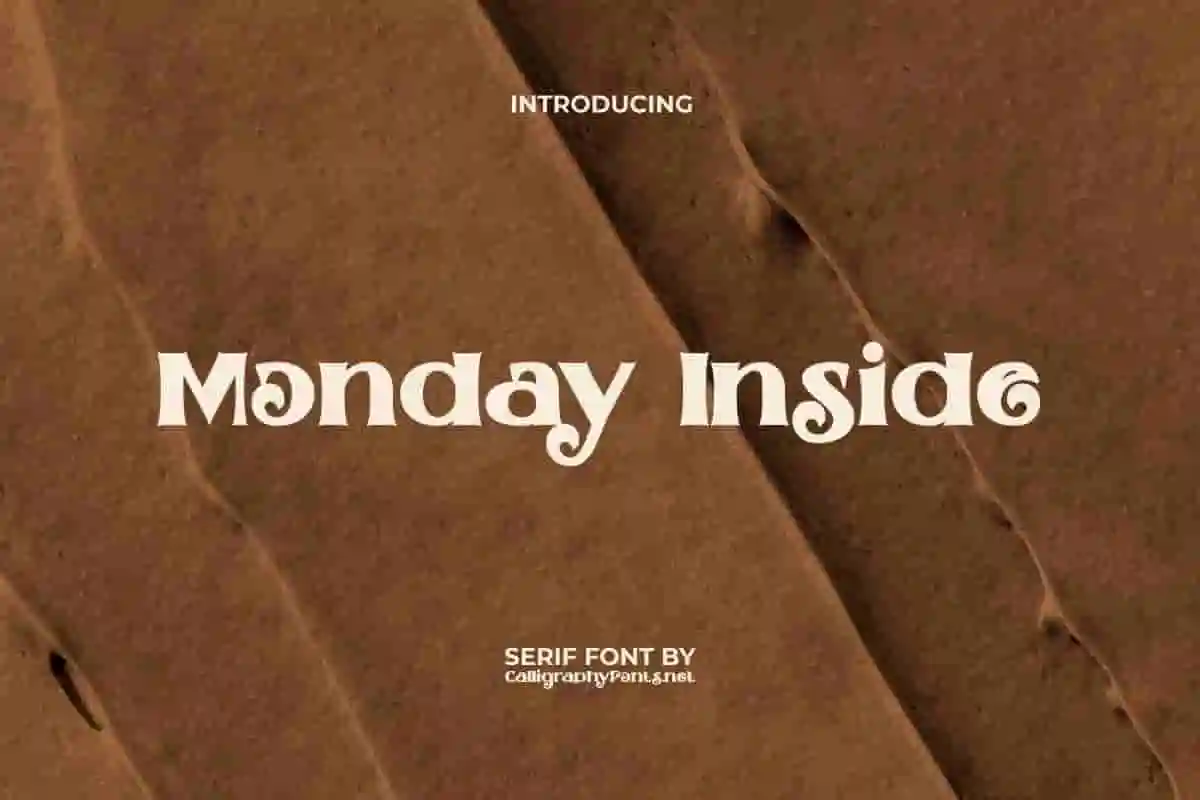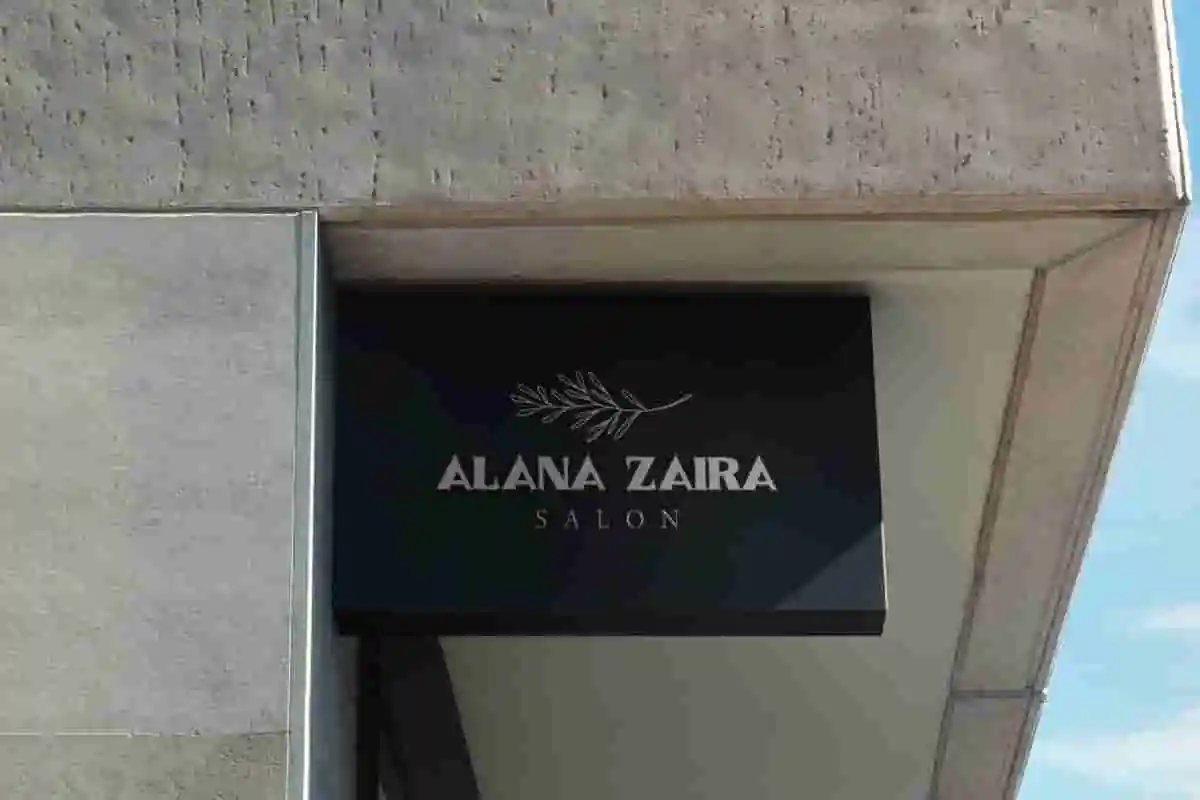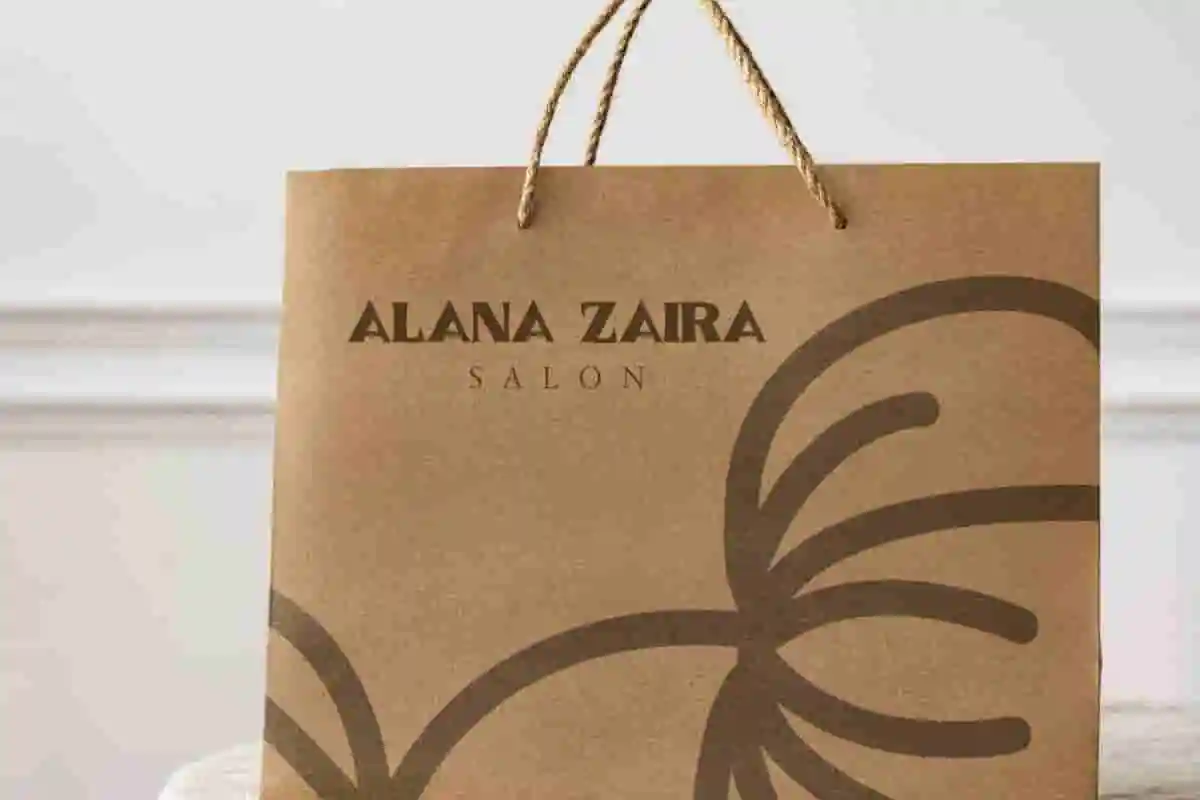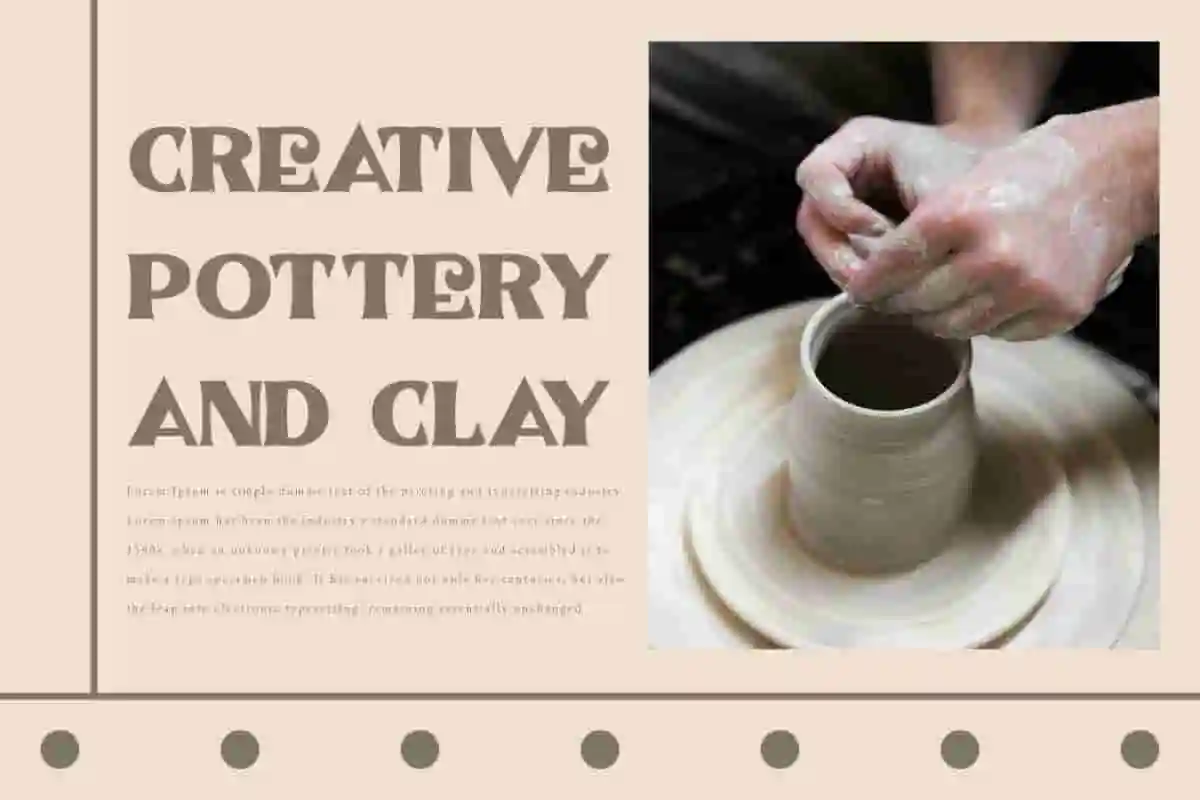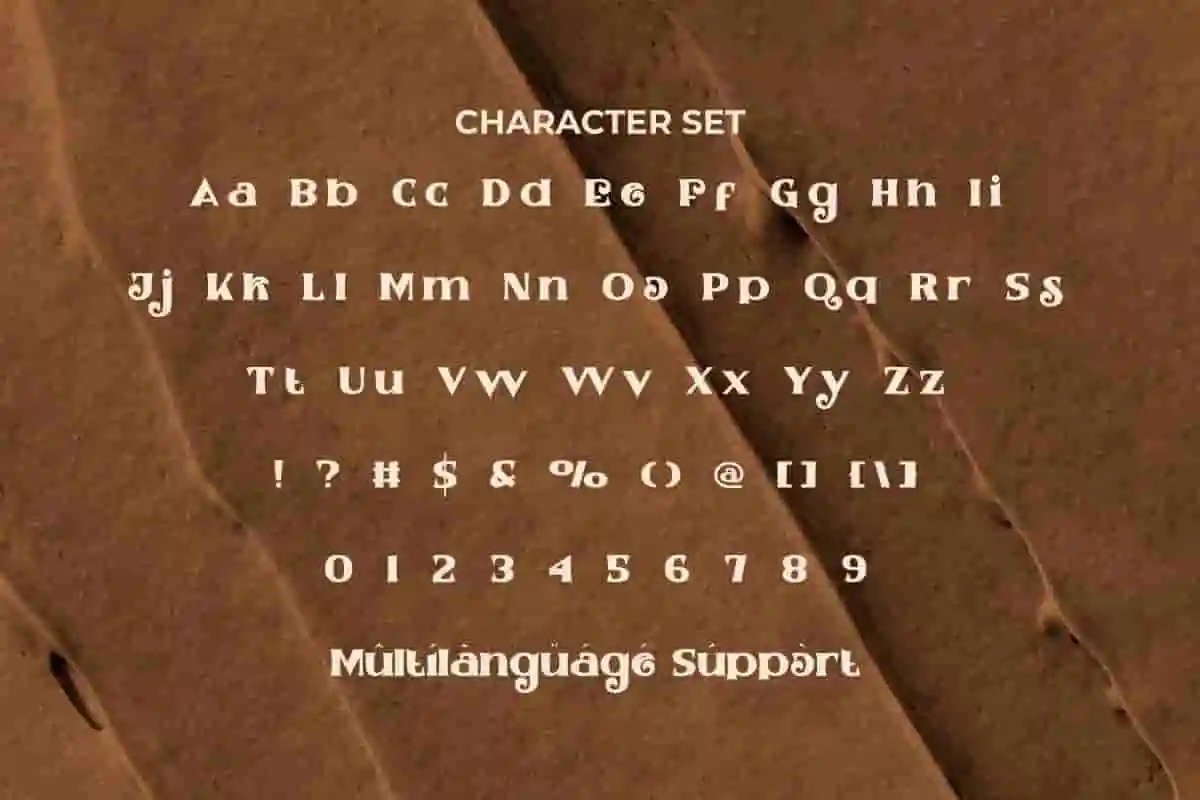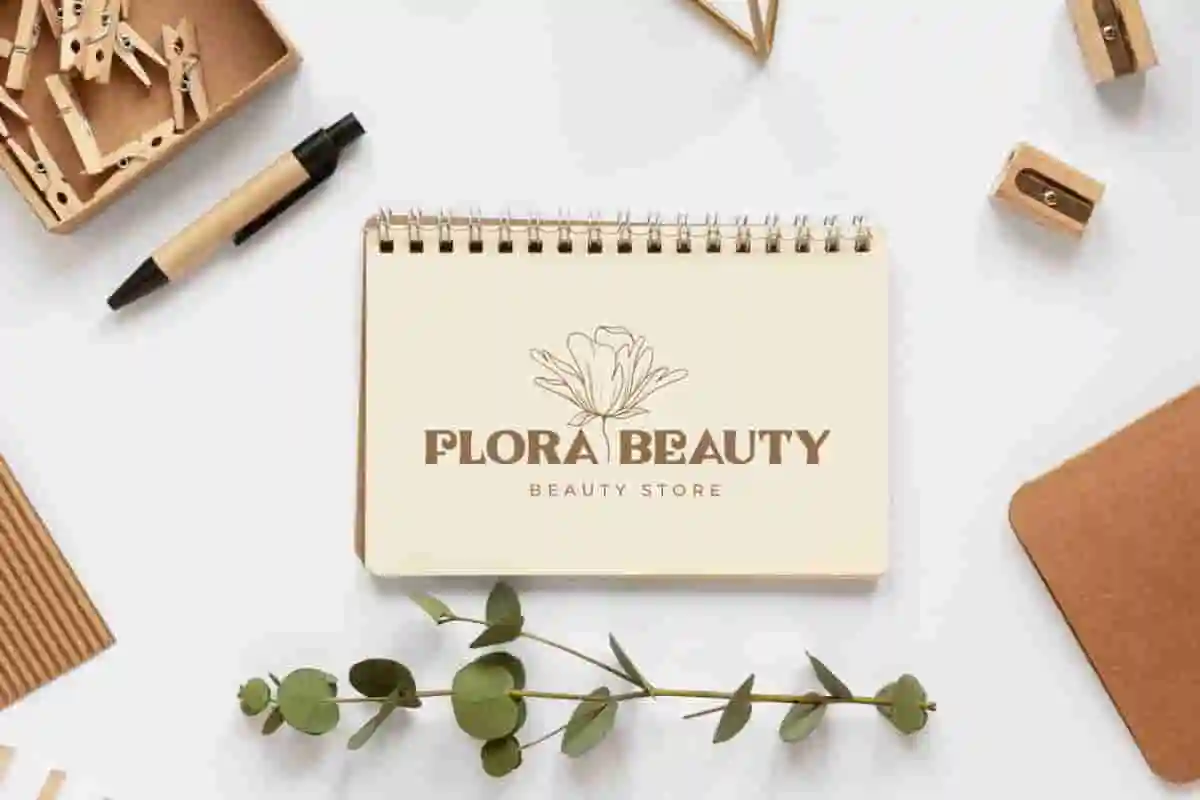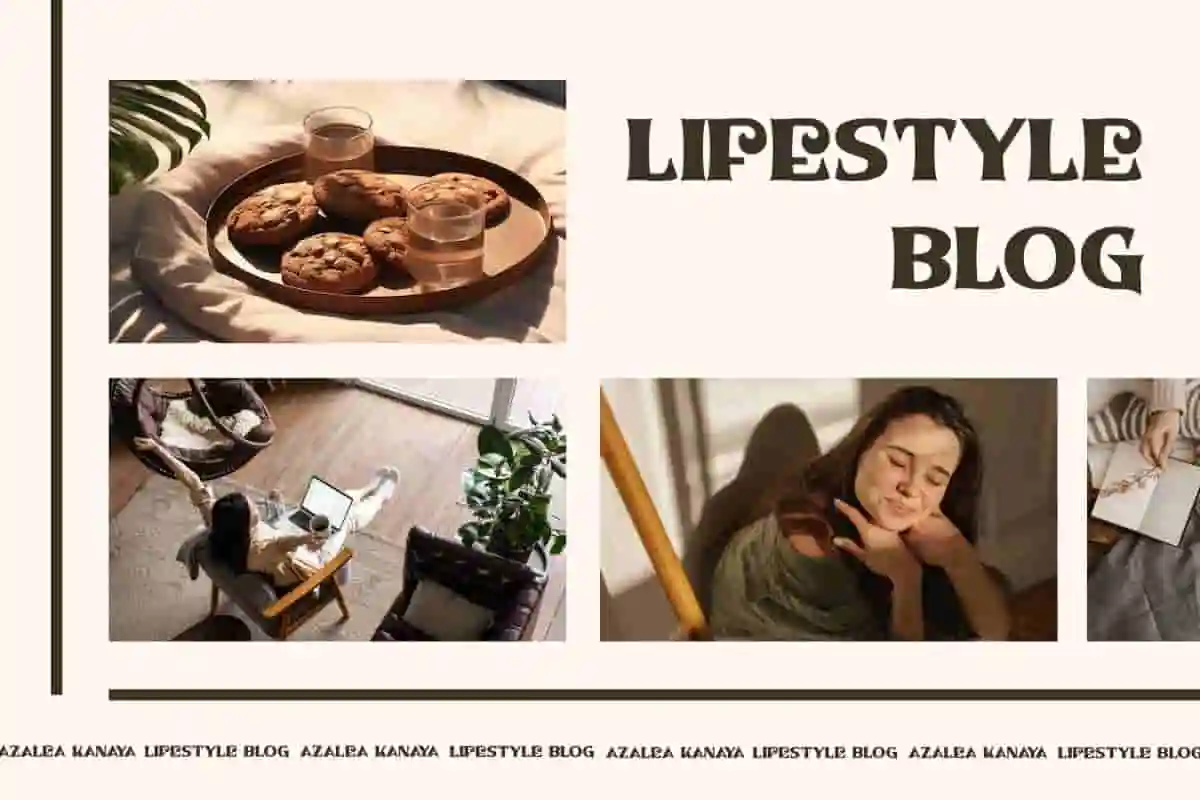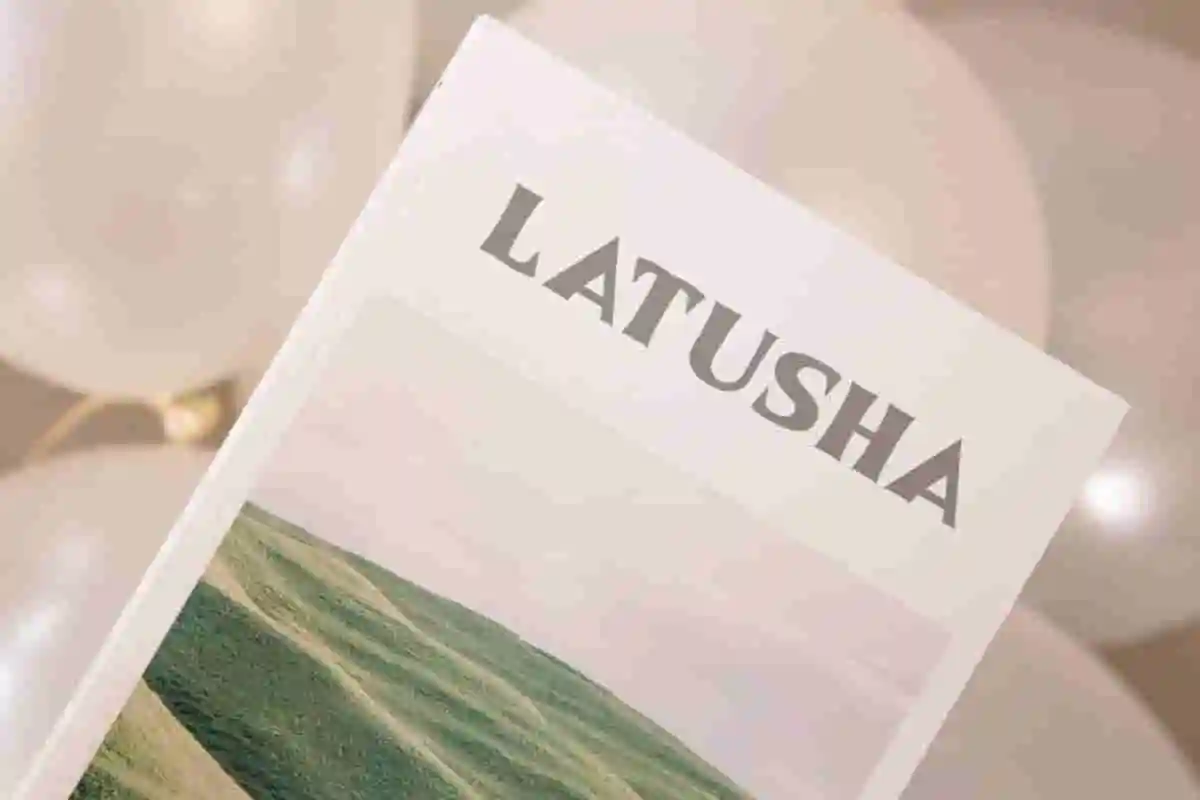
Monday Inside Font
Monday Inside Font is a typeface with a relaxed and friendly touch of the serif display type, suitable for both display and body text. Provides flexibility and adaptability across a variety of contexts and needs.
Monday Inside Font is a beautiful classic serif display font with a modern touch. Creatively crafted and high-impact to ensure a pleasant reading experience. Readability at small sizes with a strong and distinctive presence at large sizes. The contrast in its pattern gives it a tough and versatile look for a variety of applications, books and magazines, branding logo, headers, screen print, signage, stationery, title, website, etc.
Start your week with creativity and style using Monday Inside Display Font – a modern, elegant, and versatile typeface that brings sophistication to any design project. This font was carefully crafted to balance simplicity with character, making it perfect for branding, logos, editorial layouts, invitations, packaging, and social media designs. With its clean strokes and stylish curves, Monday Inside Font delivers a polished look that’s both professional and eye-catching.
Monday Inside Display Font is an attractive serif font for the typing world, here to meet the demands of today’s typography. Inspired by all the retro aesthetics that are making a comeback, bringing a nostalgic yet elegant vibe. It is perfect for beauty & health product store, cafeteria, digital ads, florist, graphic design, handicraft, pottery, salon, vlogger, and more.